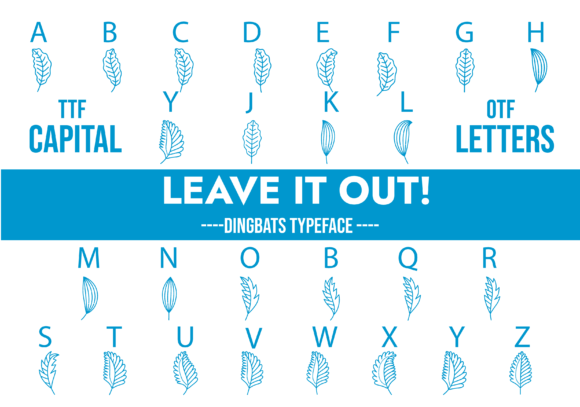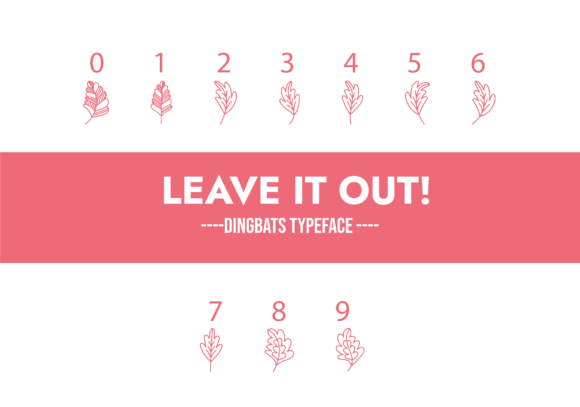
“Leave It Out” is a cool, useful, and fun dingbats font that brings a unique and eye-catching element to your designs. With its collection of playful symbols and icons, this font is a versatile asset for your font library, capable of enhancing any creation across various topics and projects.
The distinctive style of “Leave It Out” sets it apart and makes it an excellent choice for adding a touch of creativity and personality to your designs. The font’s collection of symbols ranges from quirky shapes and icons to expressive illustrations, allowing you to express ideas and concepts in a visually engaging way.
No matter the topic or purpose of your design, “Leave It Out” can elevate it to the next level. Whether you’re working on crafts, digital designs, presentations, or even creating custom merchandise, this font offers a wide range of symbols to suit your needs. Its versatility allows you to incorporate these symbols seamlessly into your designs, making them more visually appealing and captivating to the audience.
The fun and playful nature of “Leave It Out” make it a great font for projects aimed at a wide range of audiences, including children, teens, and the young at heart. The unique symbols and icons offer endless creative possibilities, allowing you to create eye-catching posters, vibrant illustrations, captivating social media posts, and more.
The charm of “Leave It Out” lies not only in its visual appeal but also in its ease of use. The symbols can be effortlessly incorporated into your designs by simply typing the corresponding characters. This convenience saves you time and allows you to focus on the creative process, ensuring a smooth and efficient design experience.
So, unleash your creativity and explore the endless possibilities with “Leave It Out.” Let its cool, useful, and fun dingbats font be the key to enhancing your designs, capturing attention, and adding a touch of uniqueness to any creation. Whether you’re aiming for a playful, whimsical, or even a bold aesthetic, this font is here to elevate your designs and make them truly stand out.